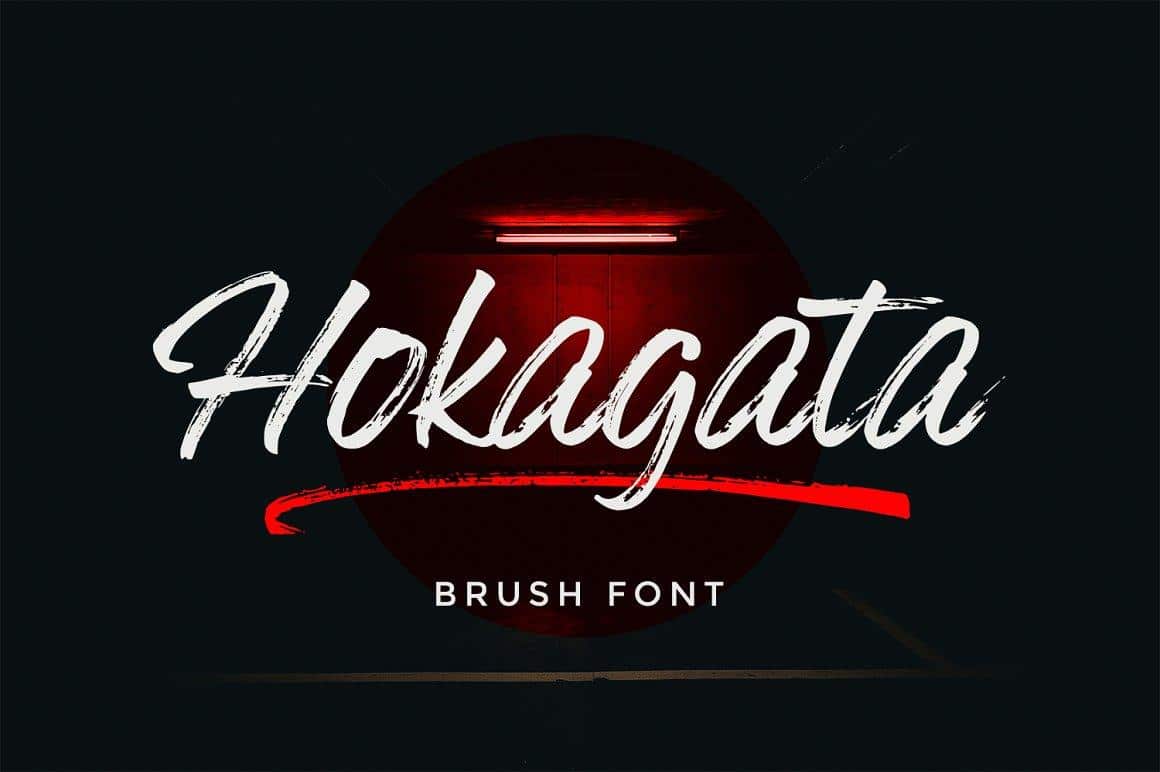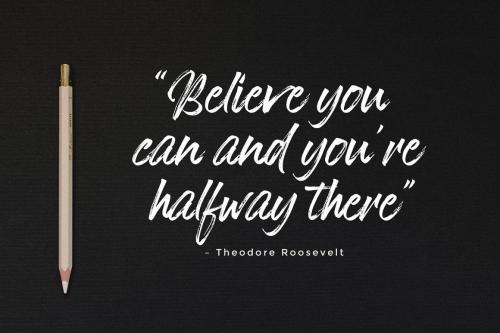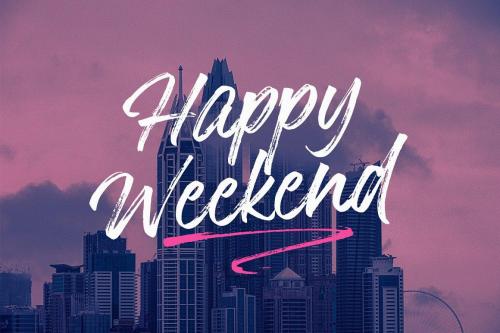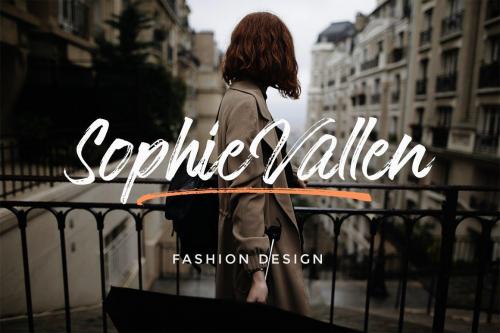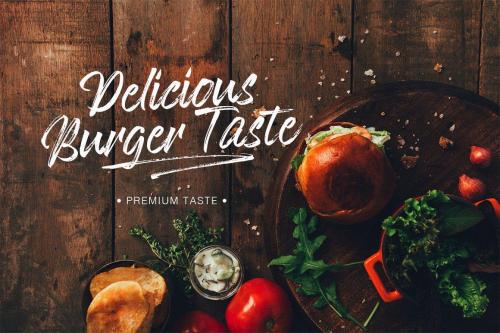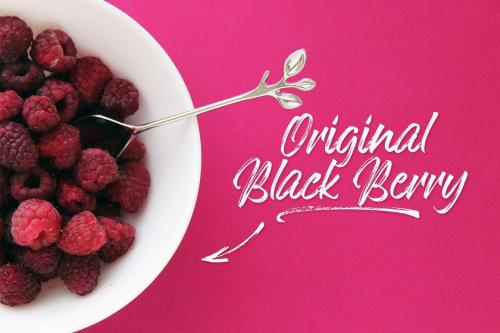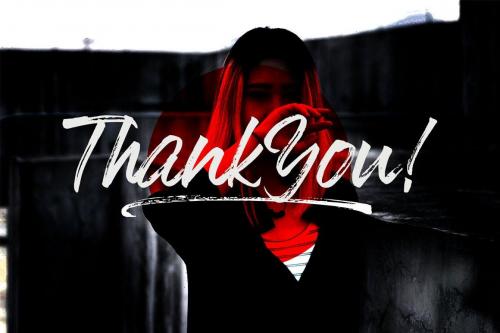
Handwritten font with quick dry strokes and a signature style. perfect for branding projects, home ware designs, product packaging or simply as a stylish text overlay to any background image or posters.
Hokagata Brush has an entire alternate glyph set. This is accessible simply by their own separate font file – just install this as normal and select ‘Hokagata Brush’ or ‘Hokagata Swash’ in your text-tool.